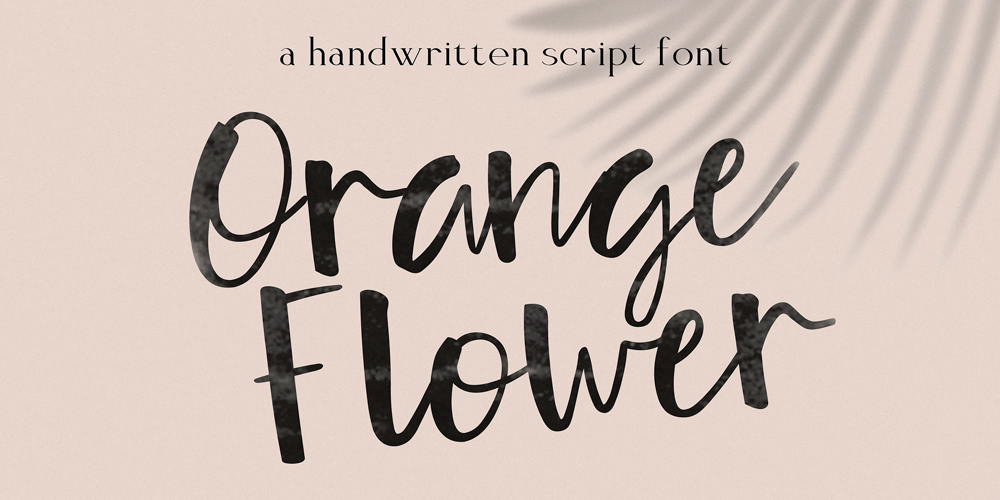
Orange Flower Font Family was designed by Anastasia Kuznetsova and published by Anastasia Kuznetsova. Orange Flower contains 2 styles and family package options. Say hello to ‘Orange Flower’!! A bold and beautiful font with a brush and a lot of additions!I am very pleased to present ‘Orange Flower’ – a versatile and artistic set of handmade fonts with a brush! The font comes with alternative uppercase and lowercase characters.Thanks to the very clear contrast in weight and authentic style made with a brush, ‘Orange Flower’ is guaranteed to give your text an individual, individual feeling – ideal for logos, printed quotes, invitations, postcards, product packaging, headlines and everything your imagination is capable of, use in ink-based drawings or watercolors or independently in the form of bold handmade inscriptions!! :)The font comes with a lot of great features to keep you busy :)Each character has its own alternative version, which allows you to create unique words and layouts.There is also a second font brush ‘Orange Flower Brush’, which contains brush strokes, underscores and brush splashes. This gives you the opportunity to create an artistic image of your text, which will give your design a sloppy realistic look :)Both fonts have a large selection of characters, including ligatures.’Orange Flower’ includes ligatures and stylistic alternatives for those who have software with opentype support (for example, Photoshop/Illustrator).I really hope you enjoy it, and please feel free to write me a message if you have any questions or concerns! :)Font Features:- A-Z; a-z character set;- 1 language (English);- numbers and punctuation marks, symbols.Fonts can be opened and used in any software that can read standard fonts, even in MS Word. No special software is required to get started.It is recommended to use it in Adobe Illustrator or Adobe Photoshop.Made with love and magic ♡Thank you for reading it, and do not hesitate to send me a message if you have any questions!~ Anastasia